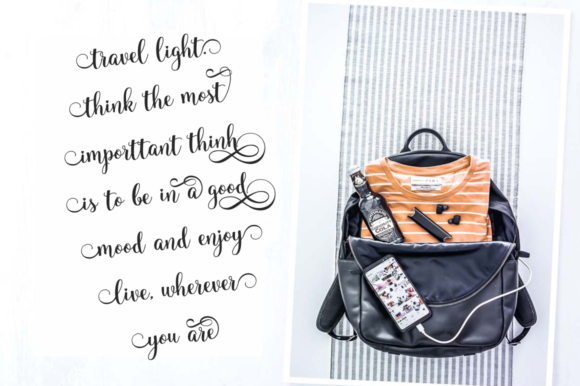
Introducing Elizabeth Font: Elevate Your Designs with Elegance and Sophistication
Are you on the hunt for a font that exudes elegance, sophistication, and a touch of modern flair? Look no further than Elizabeth Font, a stunning handwritten typeface that is sure to take your designs to the next level. With its flowing lines, beautiful glyphs, and gorgeous swashes, Elizabeth is the perfect choice for designers and crafters seeking to add a touch of class and refinement to their projects.
What Makes Elizabeth Font So Special?
Elizabeth Font is a masterpiece of typographic design, boasting a range of features that set it apart from other fonts on the market. Here are just a few reasons why Elizabeth is a cut above the rest:
- PUA Encoding: Elizabeth Font is PUA (Private Use Area) encoded, which means that you can access all of the glyphs and swashes with ease. This makes it simple to add a touch of personality and whimsy to your designs, without requiring any special technical expertise.
- Varying Baseline: Elizabeth Font features a varying baseline, which gives it a beautifully organic and hand-crafted feel. This subtle variation in line height adds a touch of elegance and sophistication to your text, making it perfect for use in high-end designs.
- Smooth Lines and Gorgeous Glyphs: The lines in Elizabeth Font are smooth and flowing, with a gorgeous range of glyphs and swashes to choose from. Whether you’re looking to add a touch of whimsy or a dash of drama to your designs, Elizabeth has everything you need to create something truly special.
- Stunning Alternates: Elizabeth Font also features a range of stunning alternates, which allow you to add even more personality and flair to your designs. With multiple options to choose from, you can tailor your text to suit your brand’s unique voice and style.
A Font that Balances Tradition and Modernity
One of the things that sets Elizabeth Font apart is its unique balance of traditional and modern influences. With its calligraphic roots and elegant lines, Elizabeth maintains a classy, sophisticated feel that’s perfect for high-end designs. At the same time, the font has a fresh, contemporary vibe that’s sure to resonate with modern audiences.
Whether you’re working on a luxury brand identity, a wedding invitation, or a high-end packaging project, Elizabeth Font is the perfect choice. Its versatility and elegance make it suitable for a wide range of design applications, from digital projects to print materials.
Why Designers and Crafters Love Elizabeth Font
So why do designers and crafters love Elizabeth Font so much? Here are just a few reasons:
- Ease of Use: With its PUA encoding and user-friendly design, Elizabeth Font is easy to use, even for those with limited technical expertise.
- High-Quality Design: Elizabeth Font is designed to the highest standards, with beautiful lines, gorgeous glyphs, and stunning alternates.
- Versatility: Elizabeth Font is versatile and adaptable, making it suitable for a wide range of design applications.
- Unique and Memorable: With its elegant lines and beautiful swashes, Elizabeth Font is sure to make your designs stand out from the crowd.
In conclusion, Elizabeth Font is a truly exceptional typeface that is sure to elevate your designs to new heights. With its elegant lines, beautiful glyphs, and gorgeous swashes, Elizabeth is the perfect choice for designers and crafters seeking to add a touch of class and sophistication to their projects. Whether you’re working on a high-end brand identity, a wedding invitation, or a packaging project, Elizabeth Font is the perfect choice. So why wait? Fall in love with Elizabeth Font today and bring your designs to the highest levels!